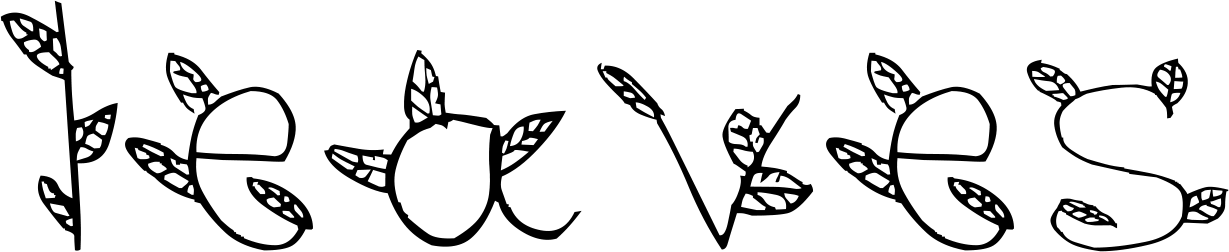
Leaves Font
leaves font has a girly, decorative, and fun style that makes it an excellent choice for so many different projects like hand-lettering, branding, clothing, card design, posters, books, and social media posts. This leaf font comes in a quite impressive collection of characters with both the upper and lowercase of the alphabet.